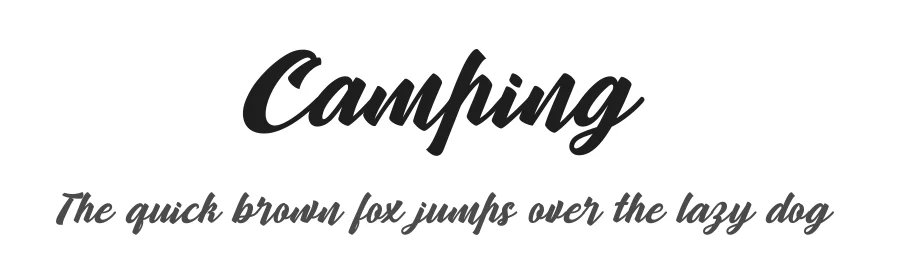
About Betterly Font
Betterly Specifications
| Font Family | Betterly |
| Full Name | Betterly |
| Glyph Count | 123 glyphs |
| PostScript Name | Betterly |
| Designer | Rian Rahardi |
Betterly supports 108 languages.
Betterly Font is a script font that shines as a display or heading face. Pair it with a clean sans-serif or serif font for body text β the contrast creates a clear hierarchy while the two styles stay balanced and easy to read.